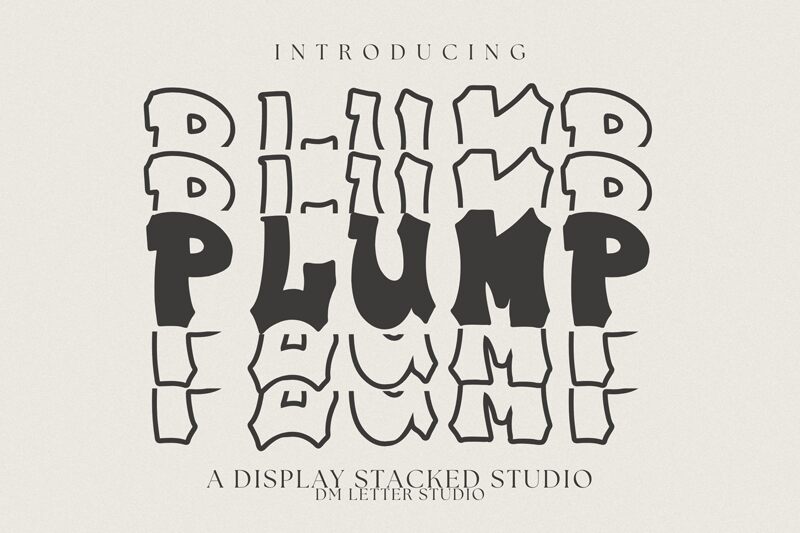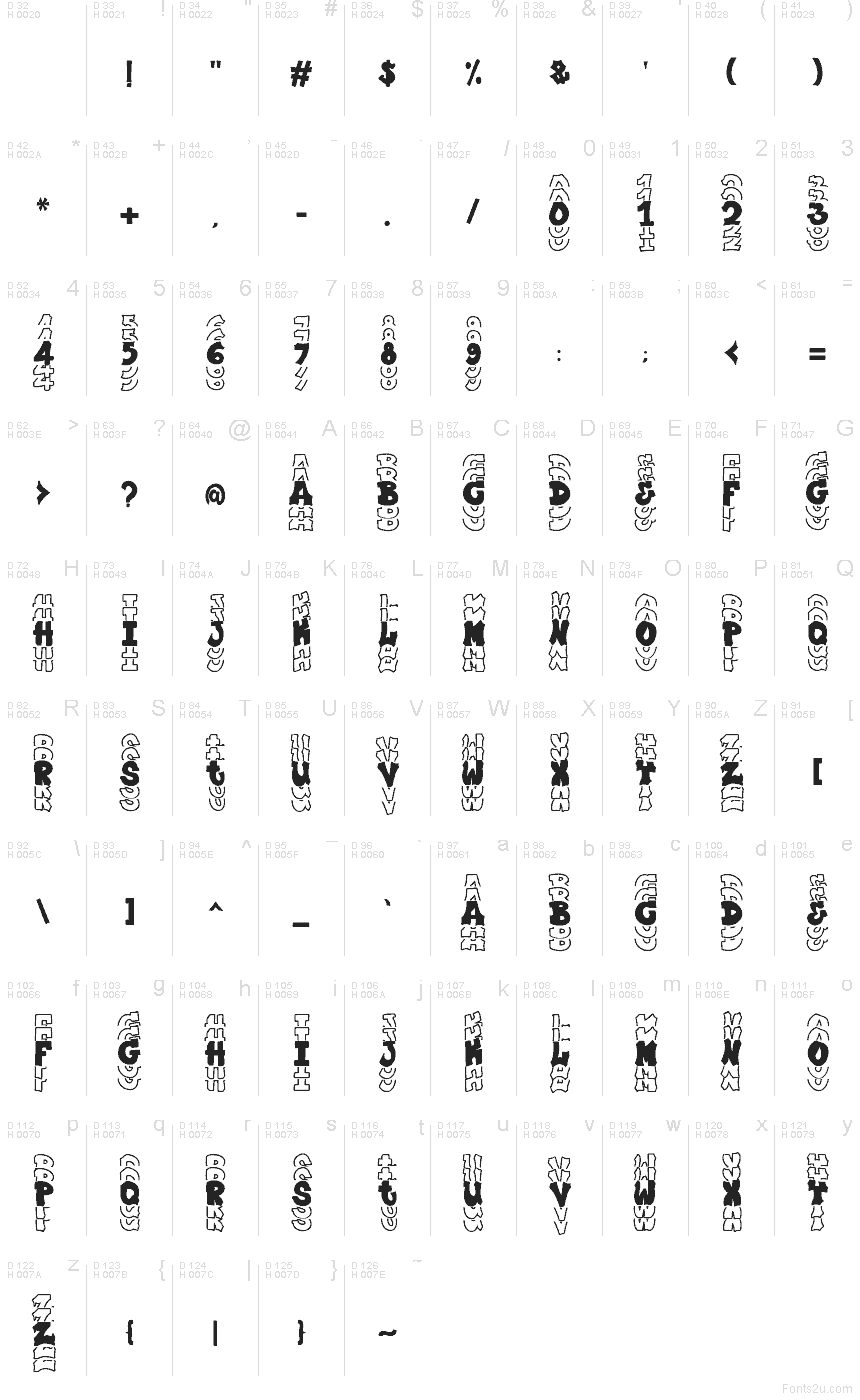
Plump Stacked
Plump Stacked font by DM Letter Studio - Dimas Prasetyo is a free decorative display typeface with a bouncy, layered personality. Each letter looks puffed with air, then echoed behind itself in loose, hand-drawn outlines, creating a stacked, almost wobbly 3D effect. The forms feel soft and squishy yet bold enough to shout from across the room, giving your titles a playful, homemade energy that still reads clearly at a glance.
Using Plump Stacked, your designs instantly pick up a candy-colored, retro-party vibe that works beautifully for kids’ posters, snack packaging, birthday invitations, social media graphics, stickers, and fun event flyers. This free font loves to be set big, where the overlapping outlines and chunky silhouettes can really breathe. For supporting text, pair it with a clean, simple sans-serif and let Plump Stacked handle the loud, joyful headlines.